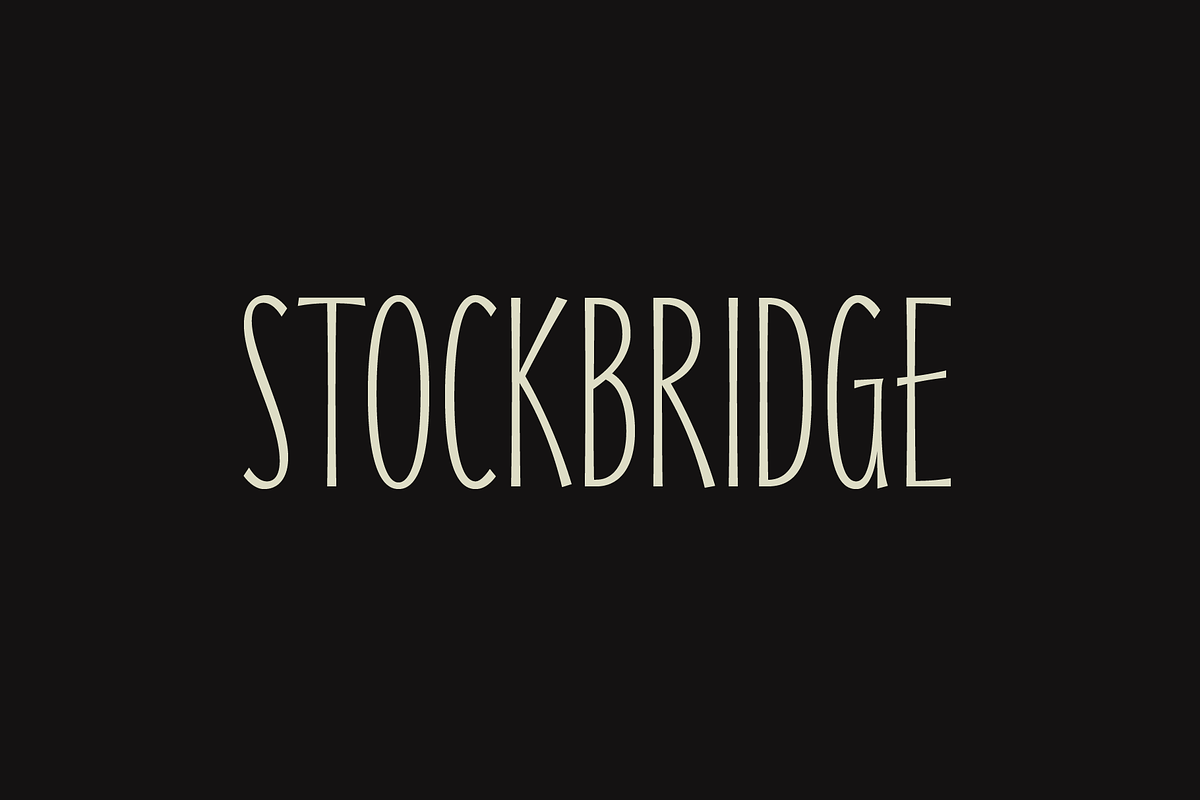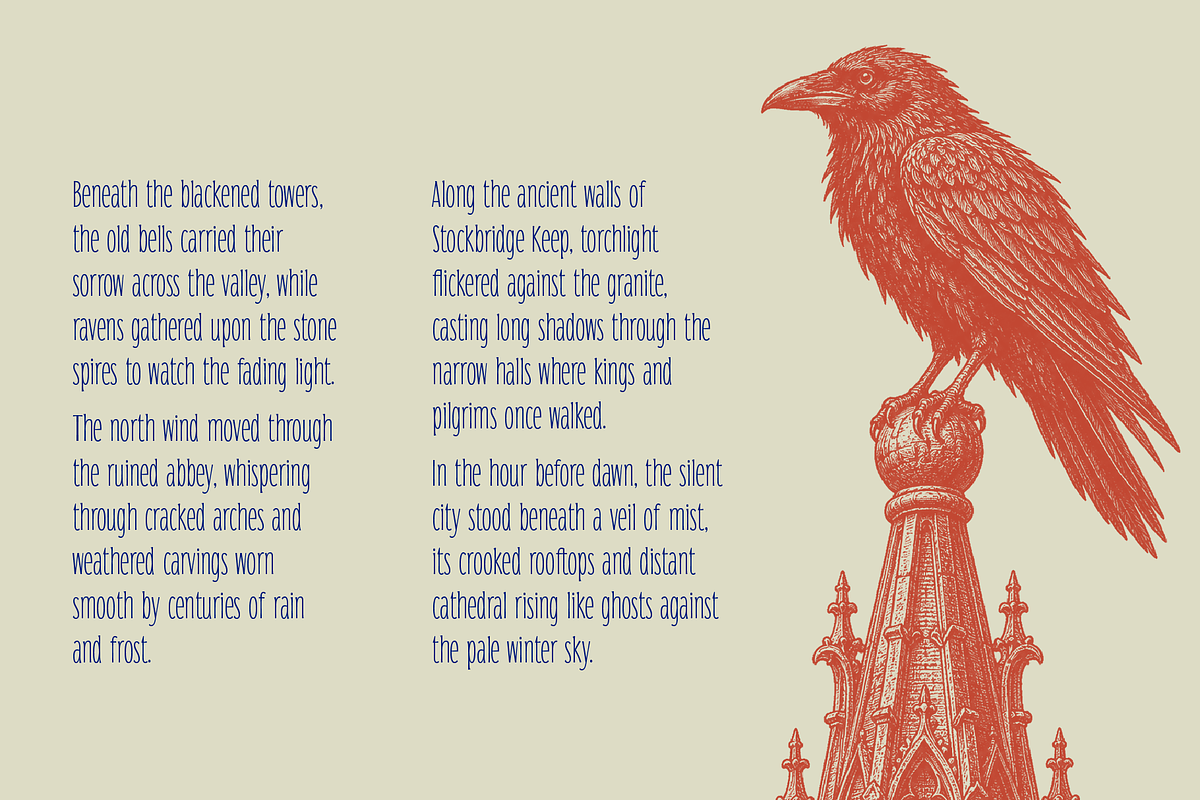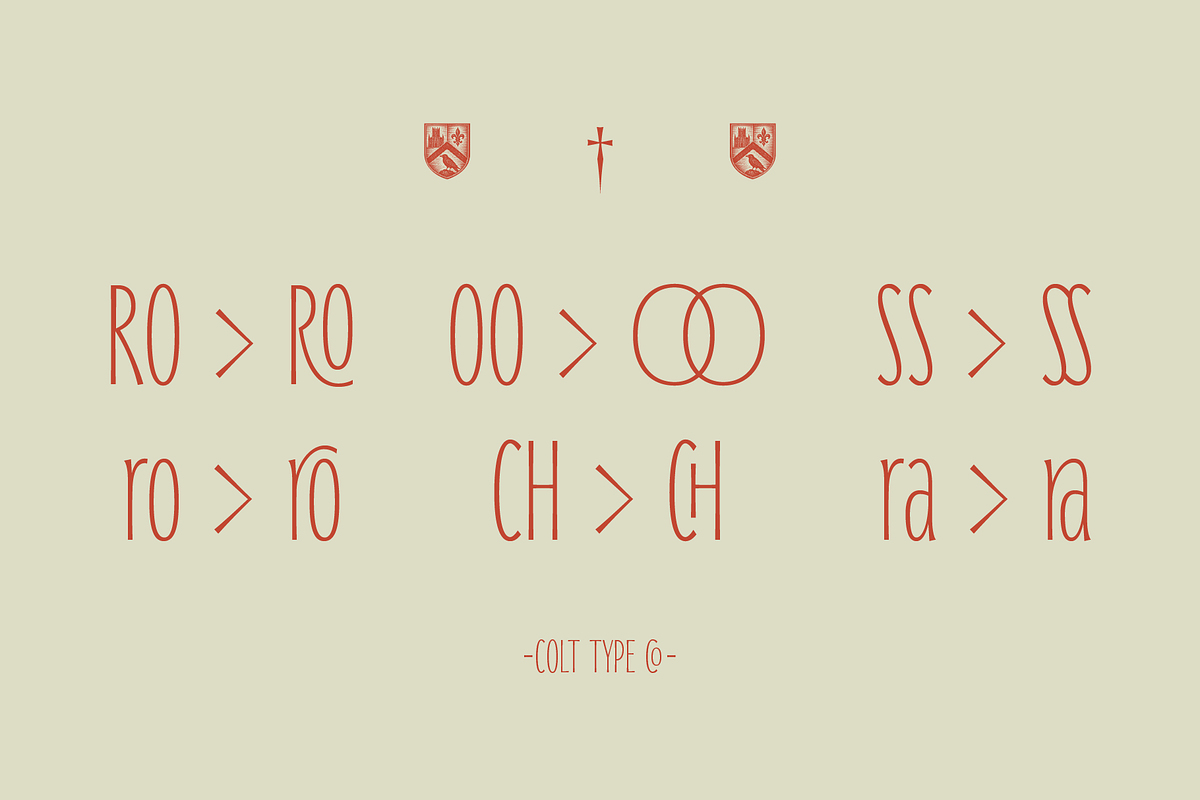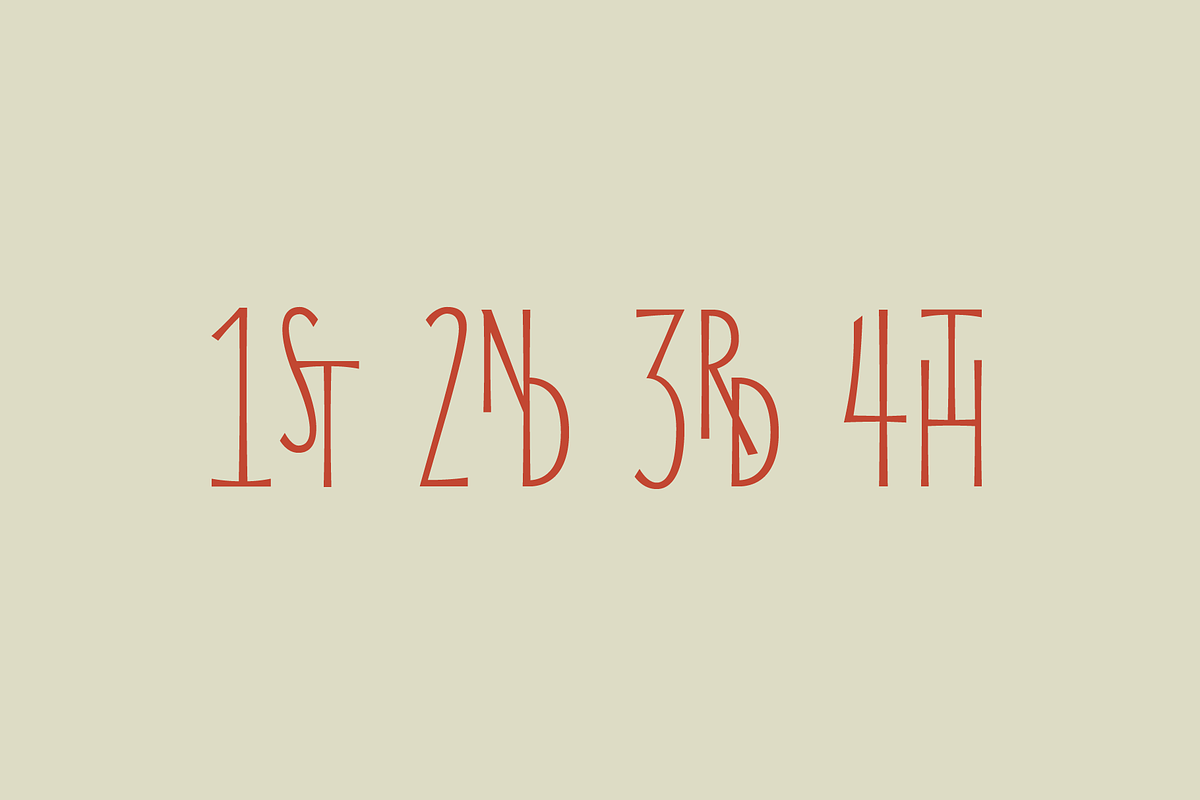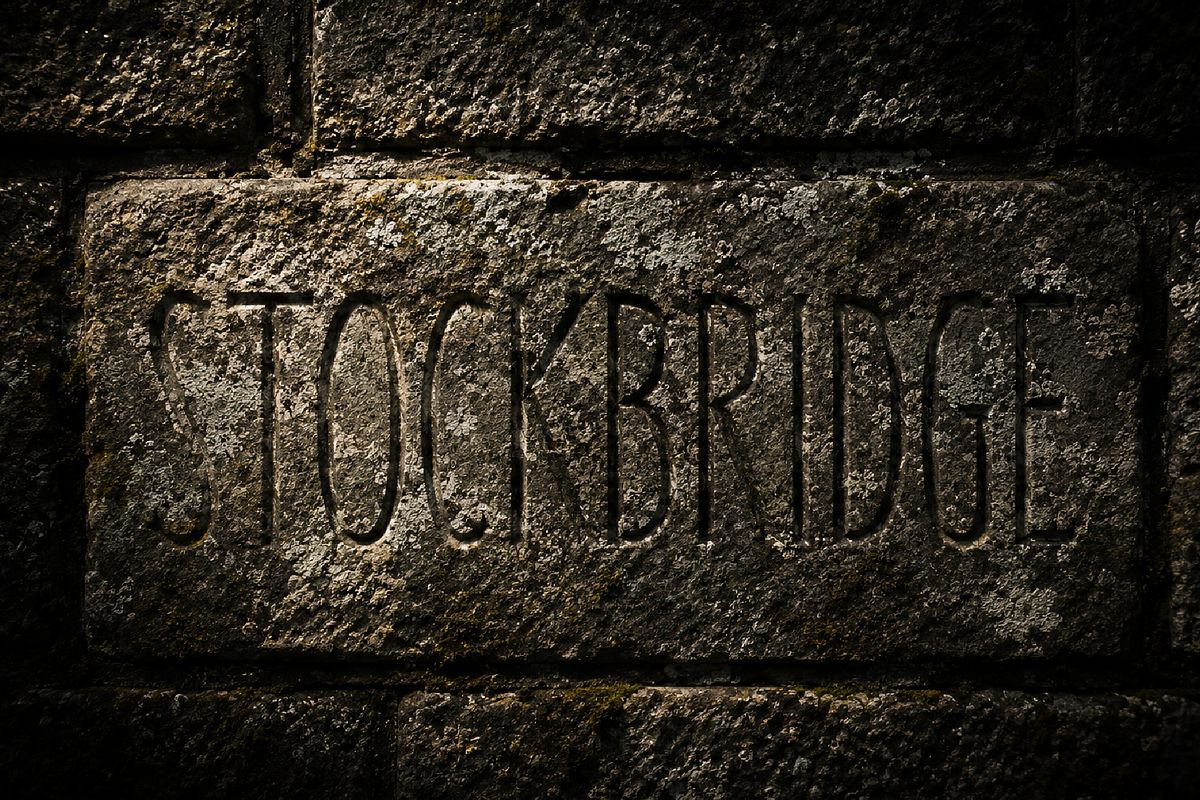
Stockbridge Display Serif
Stockbridge is a tall display serif inspired by engraved lettering found on an 18th-century church in Leicester. Drawing from the precision and restraint of traditional stone carving, the typeface combines elegant proportions with a strong architectural presence. Its narrow structure and sharp detailing create a refined rhythm that feels equally suited to classic and contemporary design work.
Designed for impactful typography, Stockbridge works beautifully across branding, editorial layouts, packaging, logotypes, headlines, and luxury applications where character and sophistication are essential. The family balances quiet authority with decorative charm, making it ideal for projects that require a distinctive serif with a sense of heritage.
An alternate cut broadens the creative possibilities, introducing more expressive forms and ornamental details inspired by the flourishes of historic inscriptions. OpenType features include standard ligatures, discretionary ligatures, stylistic alternates, and contextual substitutions, allowing designers to create richly detailed and highly customised typography with ease.
Whether used for elegant wordmarks, magazine mastheads, book covers, or atmospheric editorial titles, Stockbridge delivers a timeless display style shaped by craftsmanship, history, and careful attention to detail.
Tall display serif
Alternate stylistic cut
Standard & discretionary ligatures
Stylistic alternates
Contextual substitutions
Multilingual language support
Ideal for
Branding & identity
Logotypes
Editorial design
Packaging
Posters
Book covers
Luxury & heritage-inspired projects